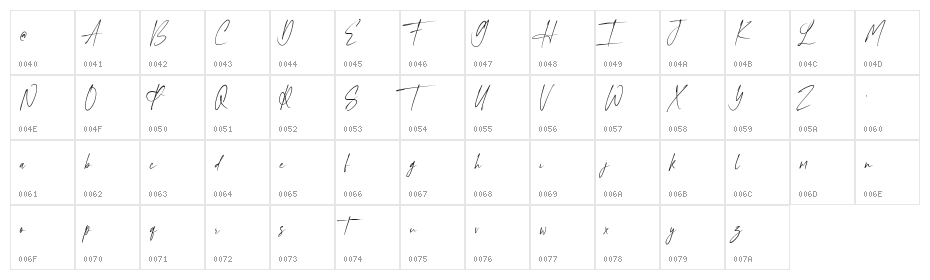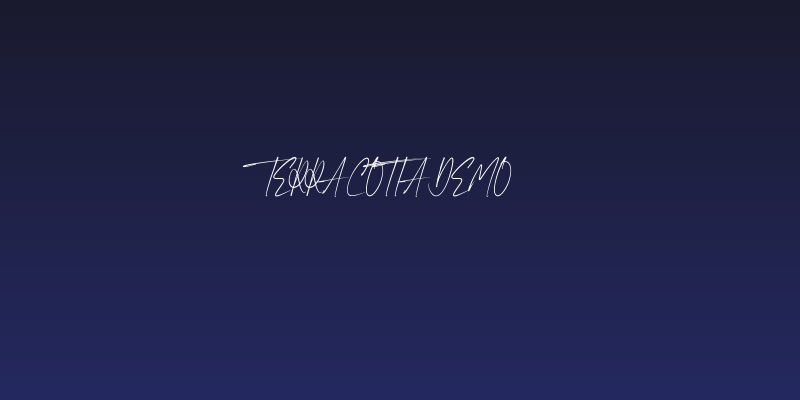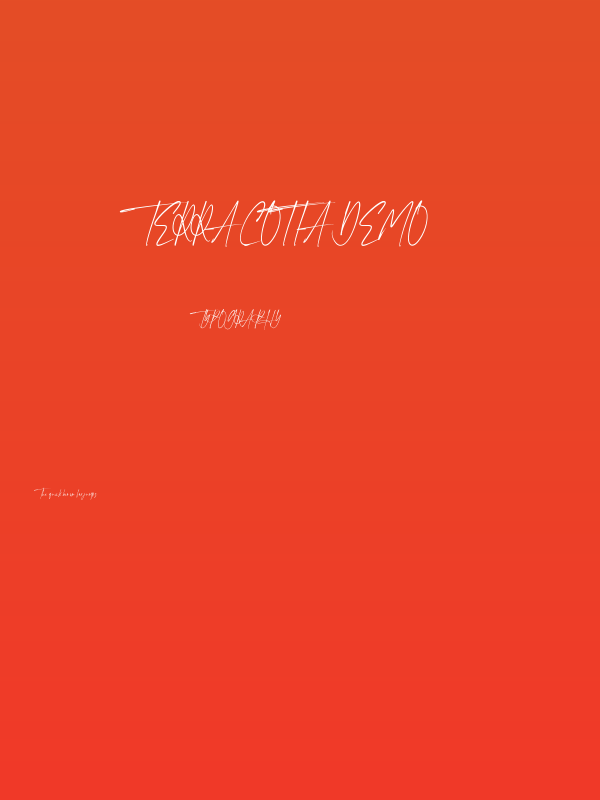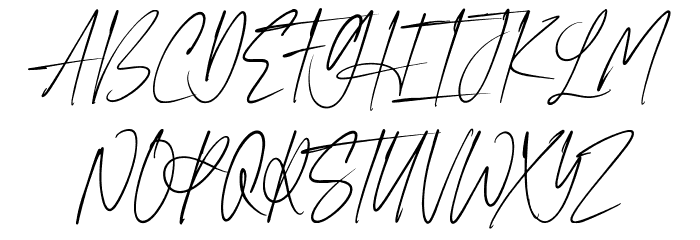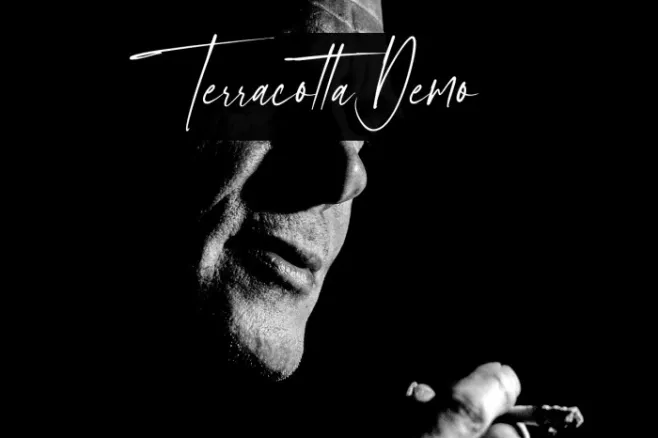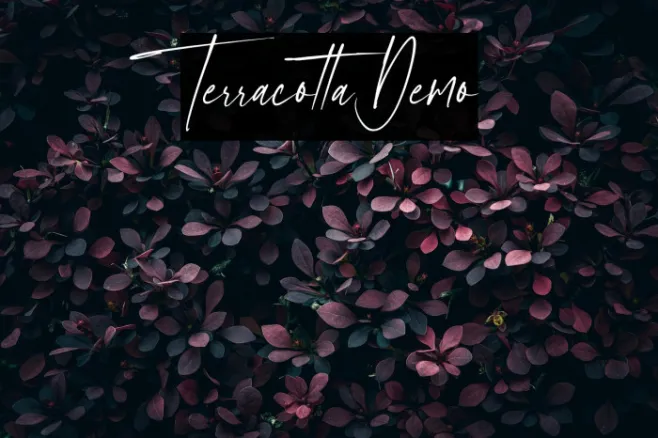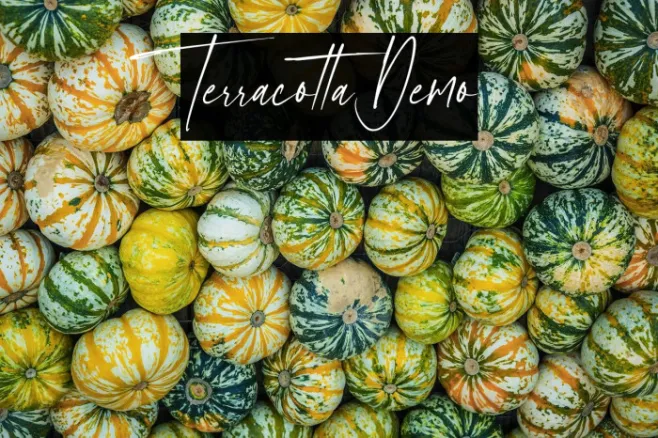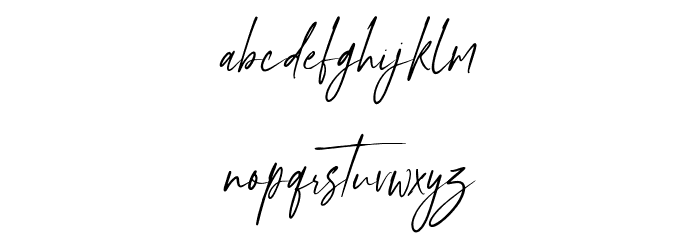
Terracotta Demo Font
Terracotta Demo Description
This font exudes a modern and artistic flair with its handwritten style, characterized by flowing, cursive strokes that convey a sense of elegance and sophistication. The letters are elongated and slightly slanted, giving them a dynamic and fluid appearance. The uppercase and lowercase characters maintain a consistent style, with the uppercase letters being more prominent and bold. The font's thin lines and high contrast between thick and thin strokes add to its delicate and refined look. It's perfect for projects that require a personal touch, such as invitations, greeting cards, or branding materials that aim to convey creativity and elegance.
| Proposed Projects | Ideal for invitations, greeting cards, branding, and creative projects requiring a personal touch. |